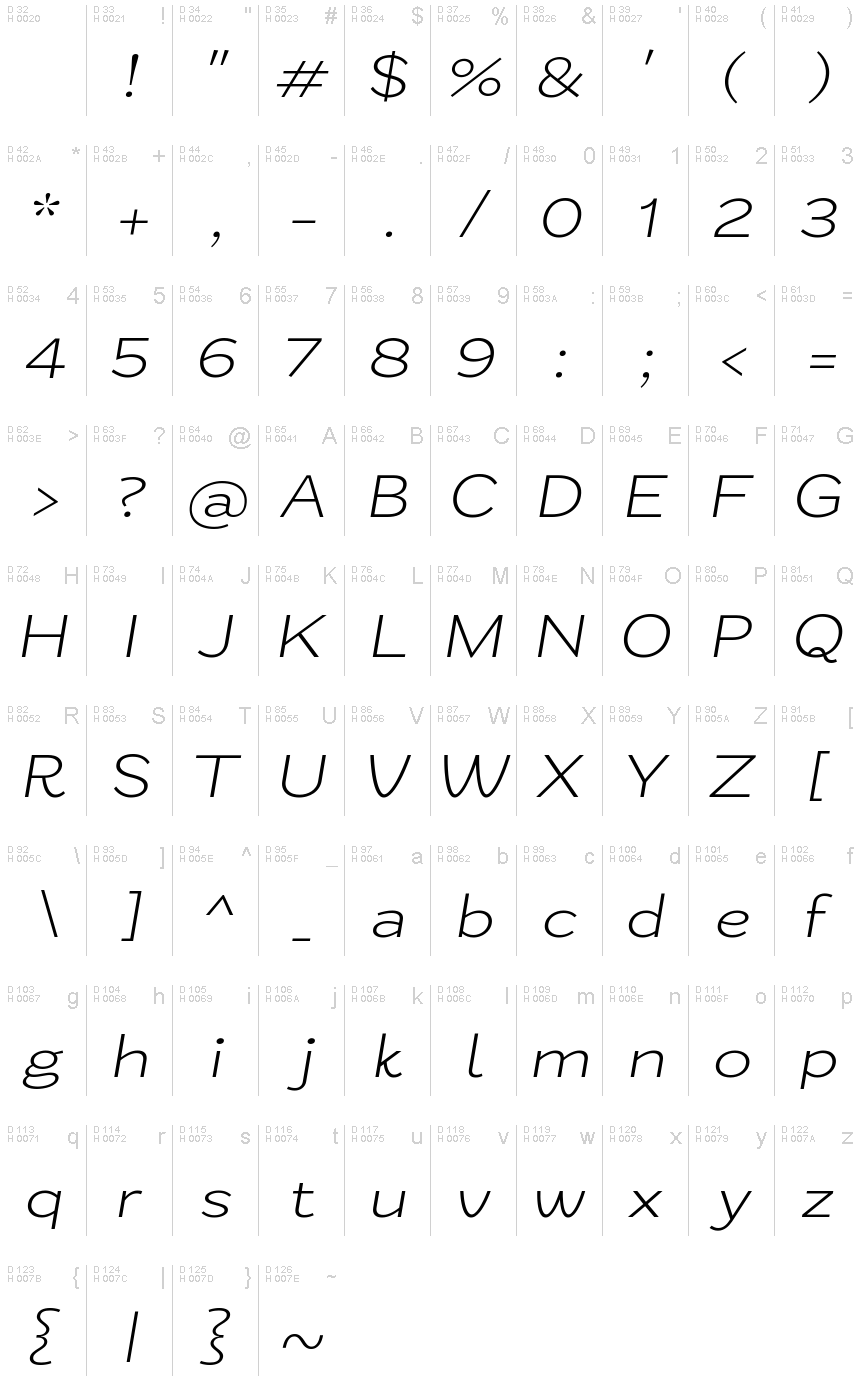
Zt Nezto DEMO ExtLt Ita
Zt Nezto ExtLt Italic, crafted by Khaiuns, is a distinctive sans serif font that captivates with its elegant and refined style. This expanded light font emphasizes smooth curves and thoughtful design, addressing the challenges of harmonizing letters like W and V with others. The result is a unified aesthetic that breathes sophistication into every project.
Ideal for modern branding, editorial design, or digital interfaces, Zt Nezto ExtLt Italic brings a fresh and cohesive element to typography. Whether used in headlines or body text, its unique blend of elegance and readability ensures your message stands out with grace.